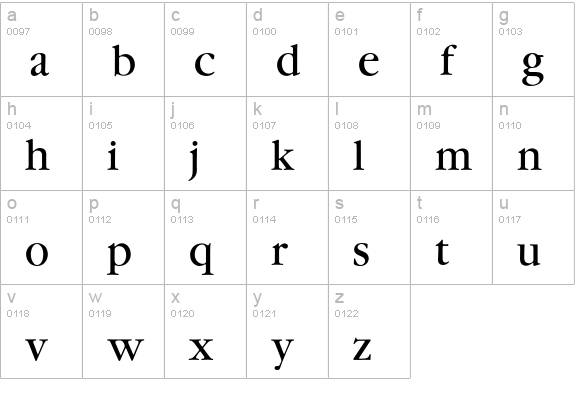
Garamond* Book Font Details
Garamond* Book is a comfortable, highly readable variant in the Garamond* typeface family \xE2\x80\x94 well suited to long-form body text, articles, and editorial content.
Garamond Book font is a timeless and elegant typeface that exudes sophistication and classic charm. Its refined serifs and graceful letterforms make it perfect for a wide range of design projects, from books to invitations to branding materials. The Garamond Book font effortlessly combines tradition with modernity, making it a versatile choice for both print and digital applications. The best part? Garamond Book font is available for free download at FontsMarket.com, allowing designers and creatives to access this high-quality typeface without any cost. Whether you are working on a personal project or a professional assignment, Garamond Book font is a reliable and polished choice that will elevate your design work to new heights. Download it today and add a touch of sophistication to your creations with this exquisite typeface.